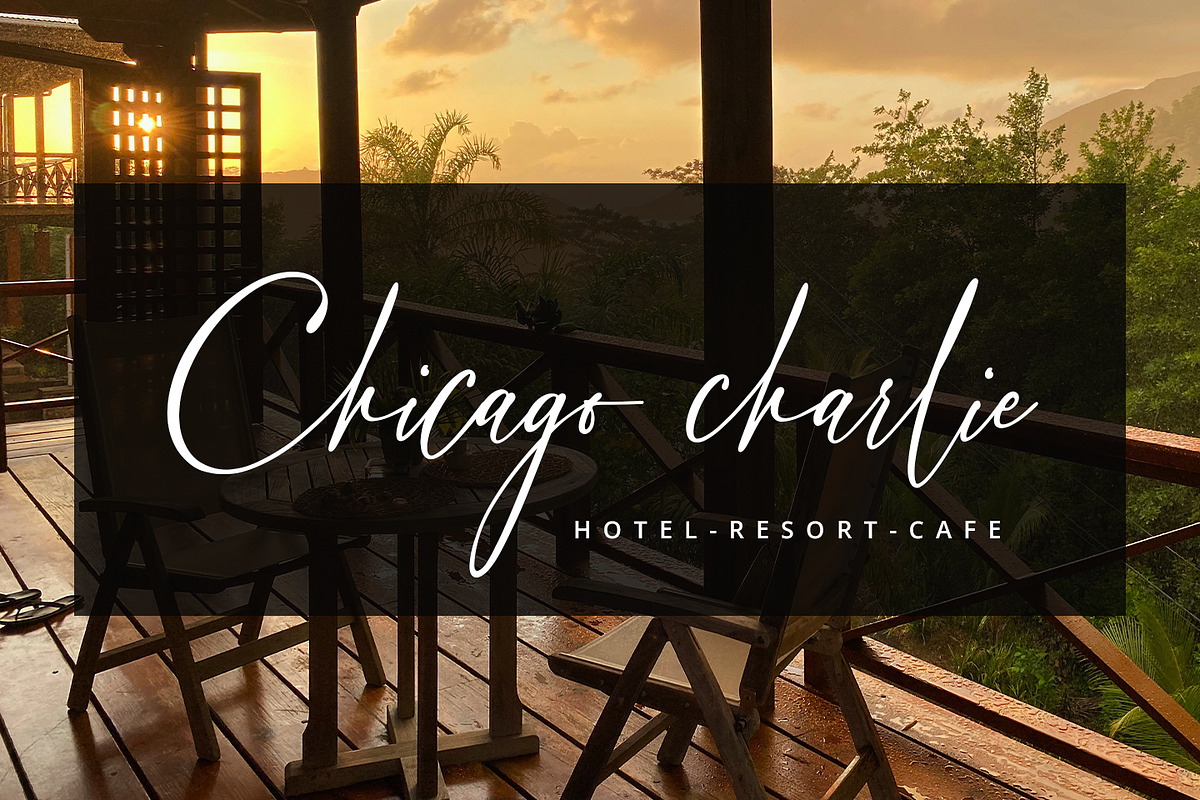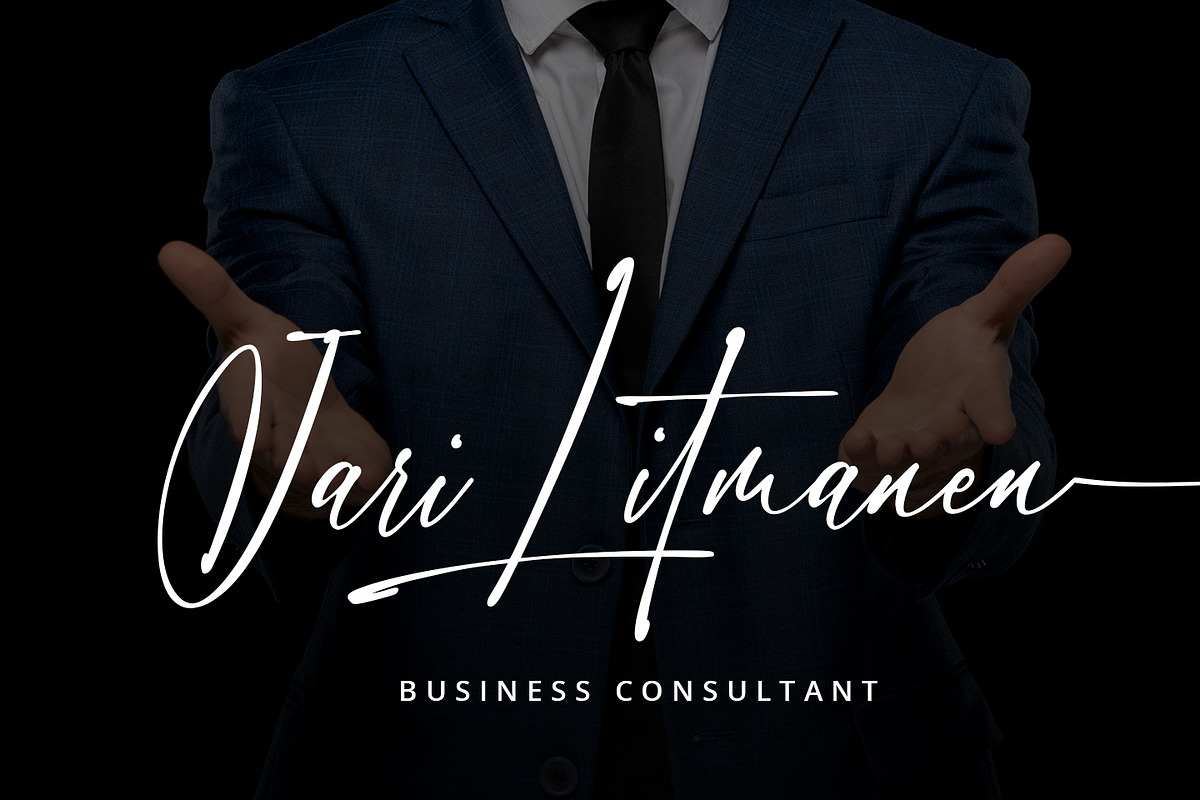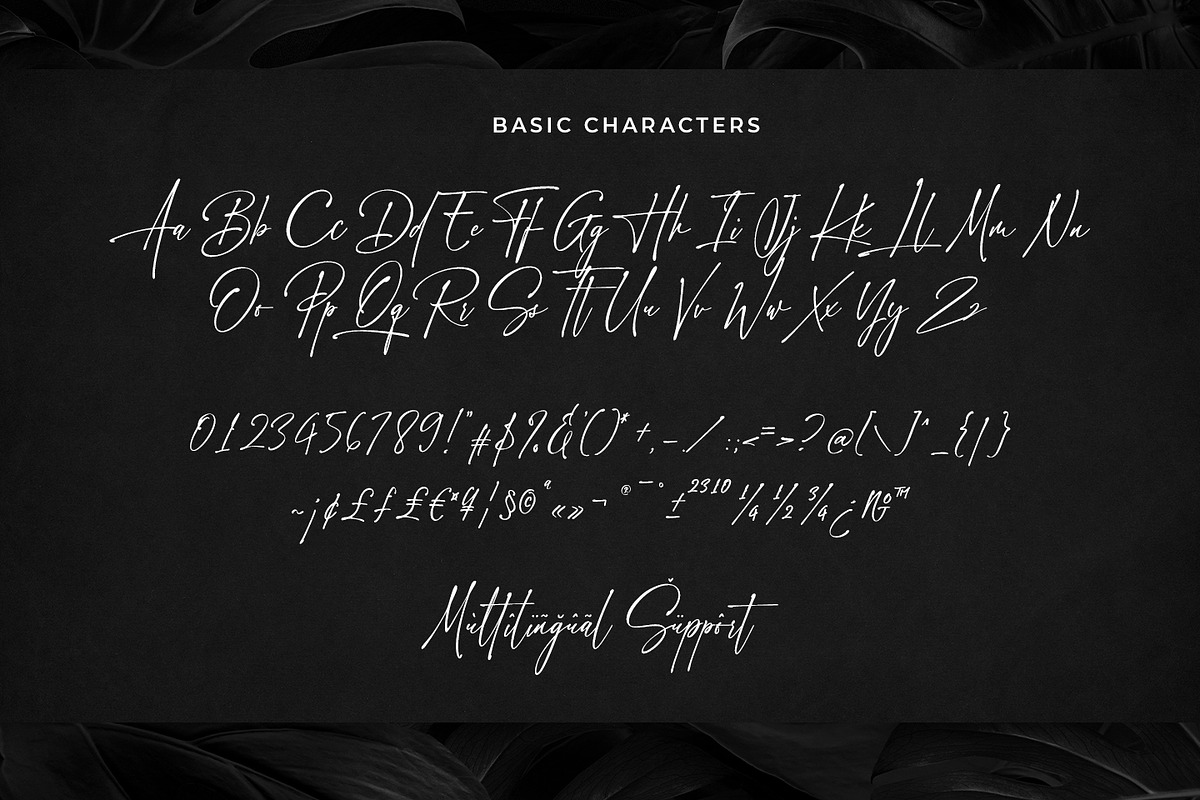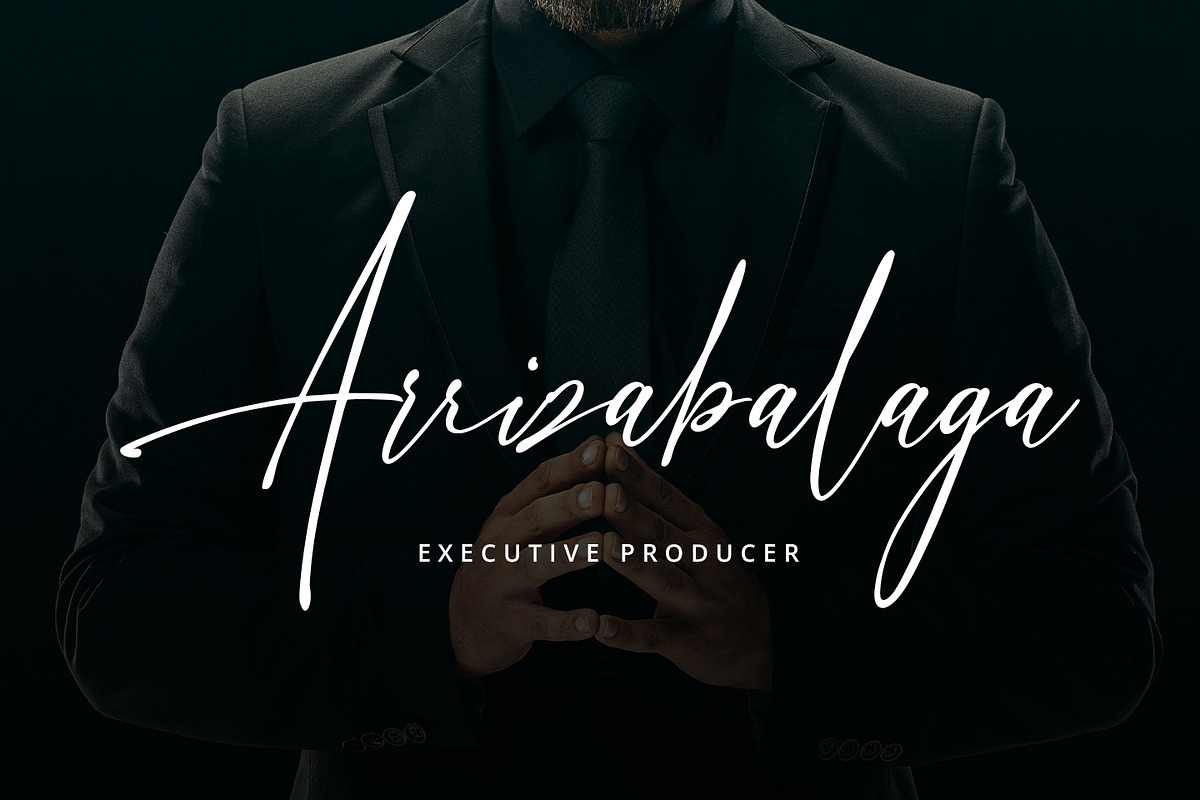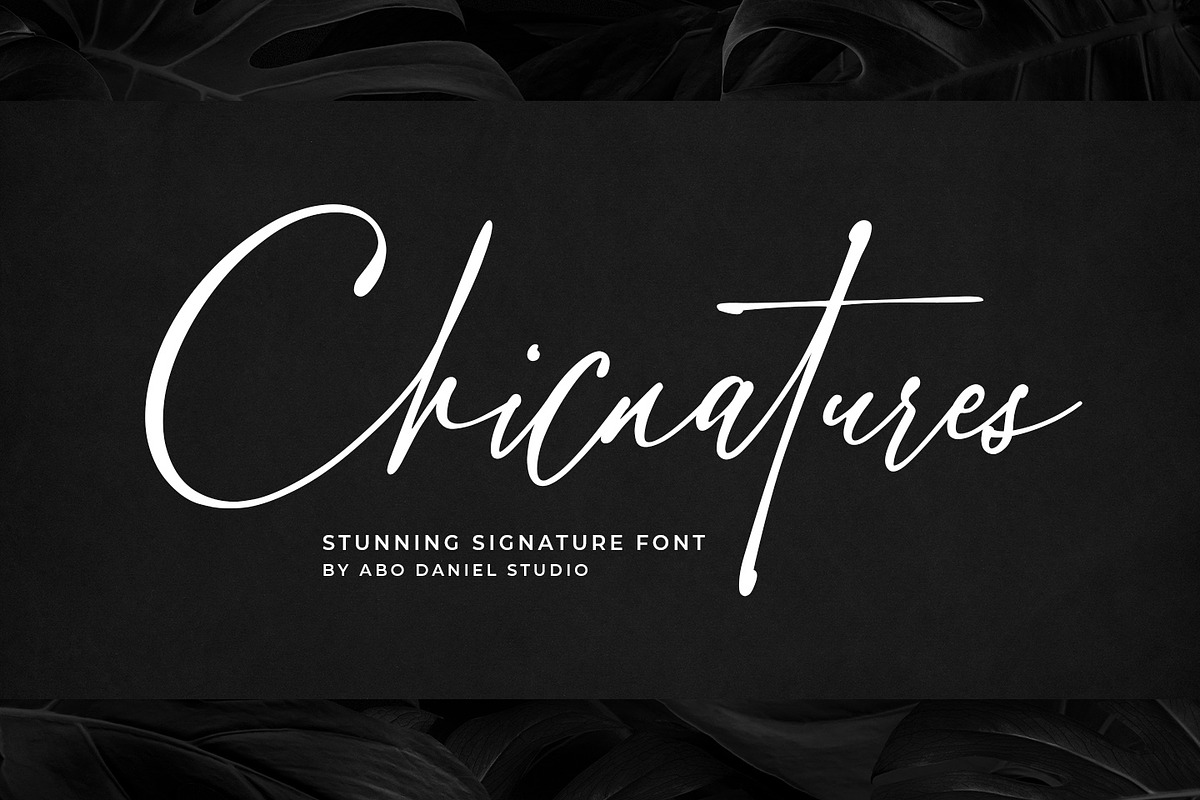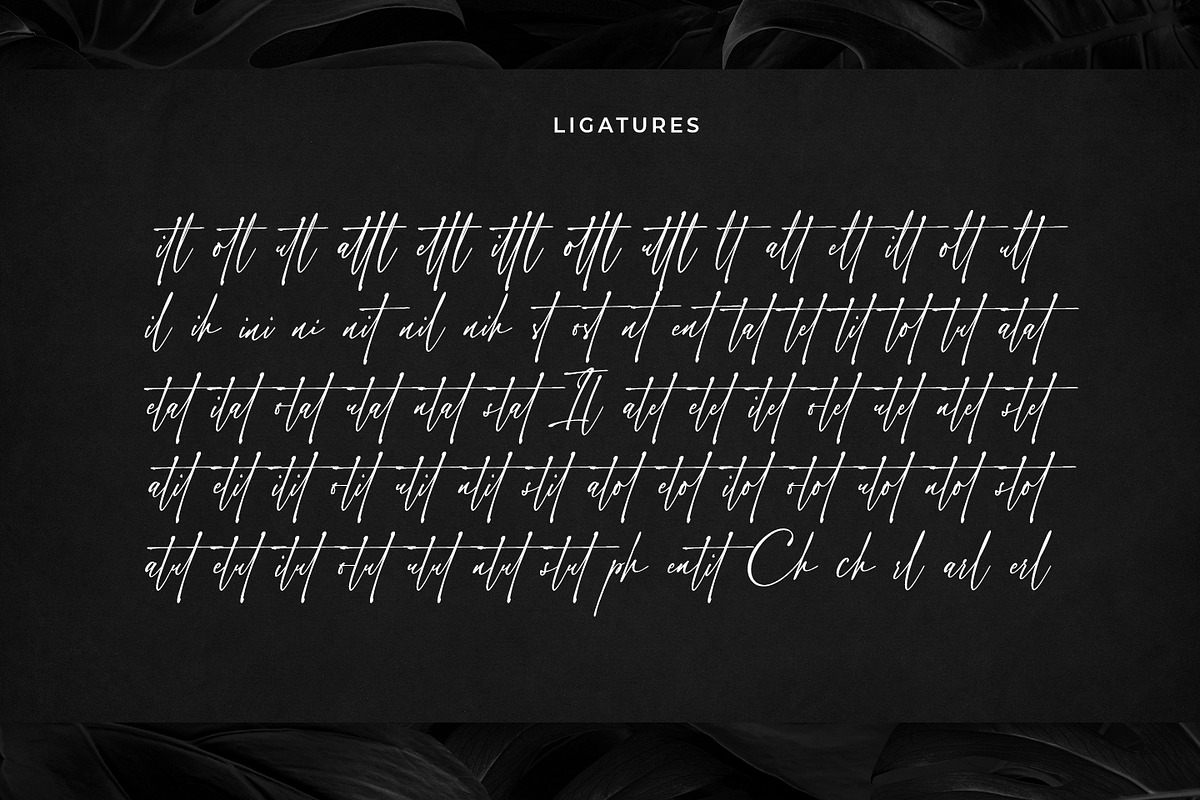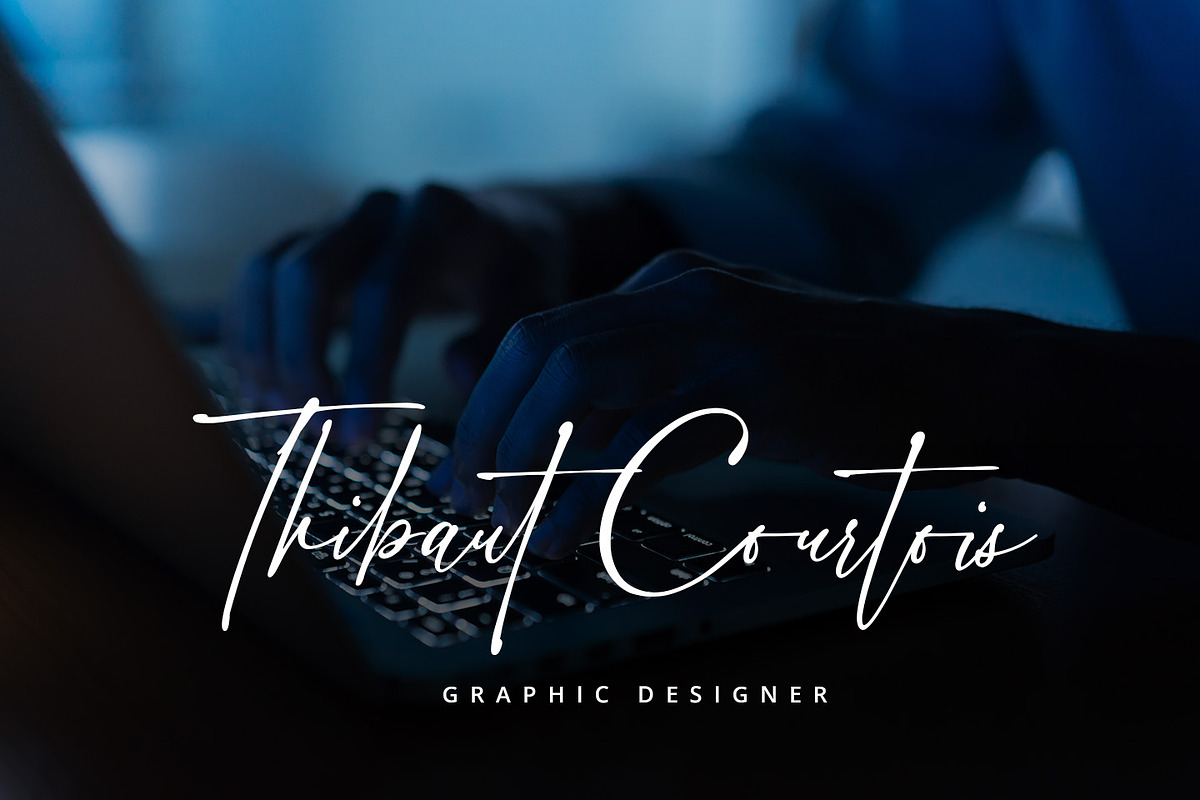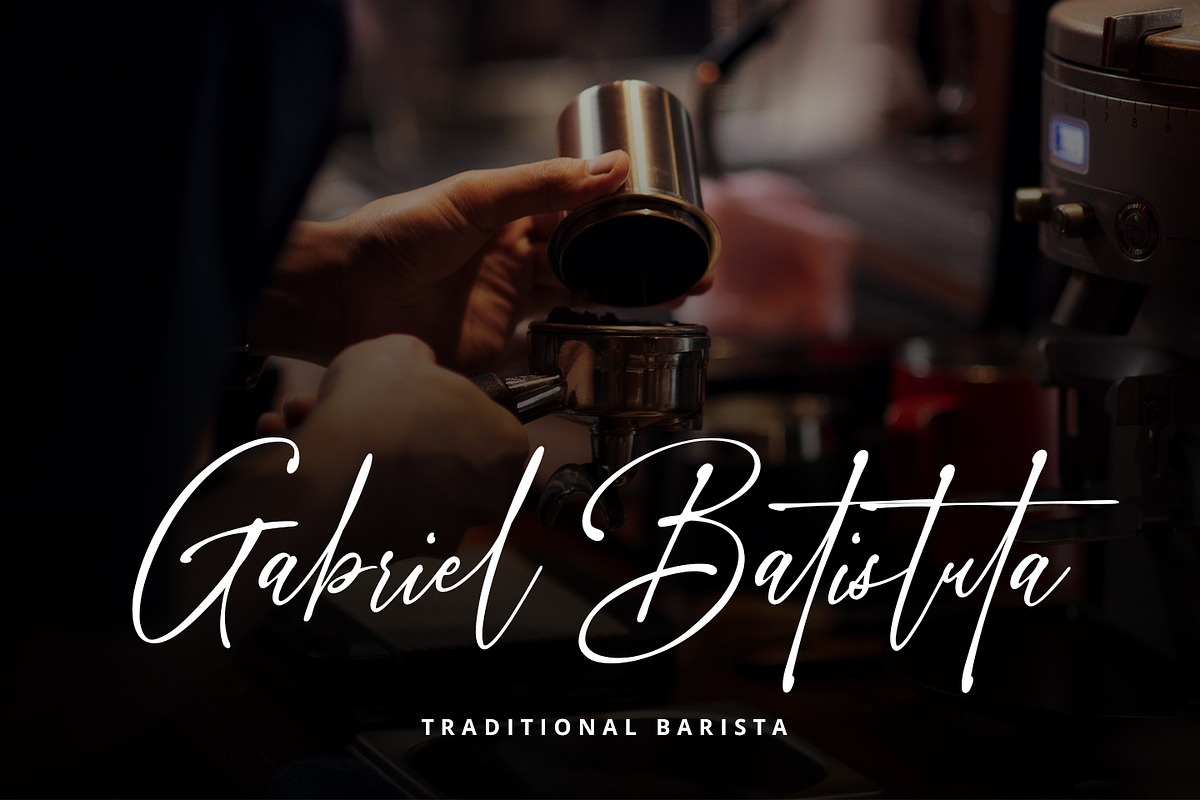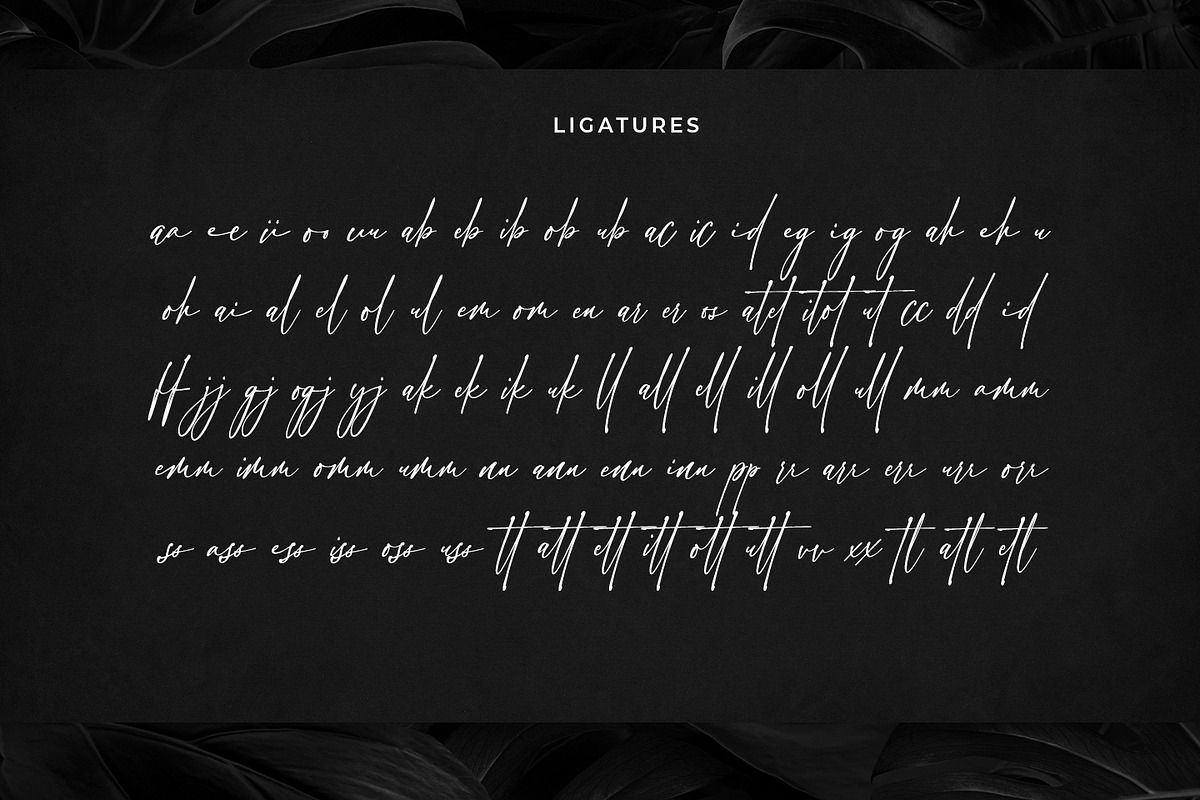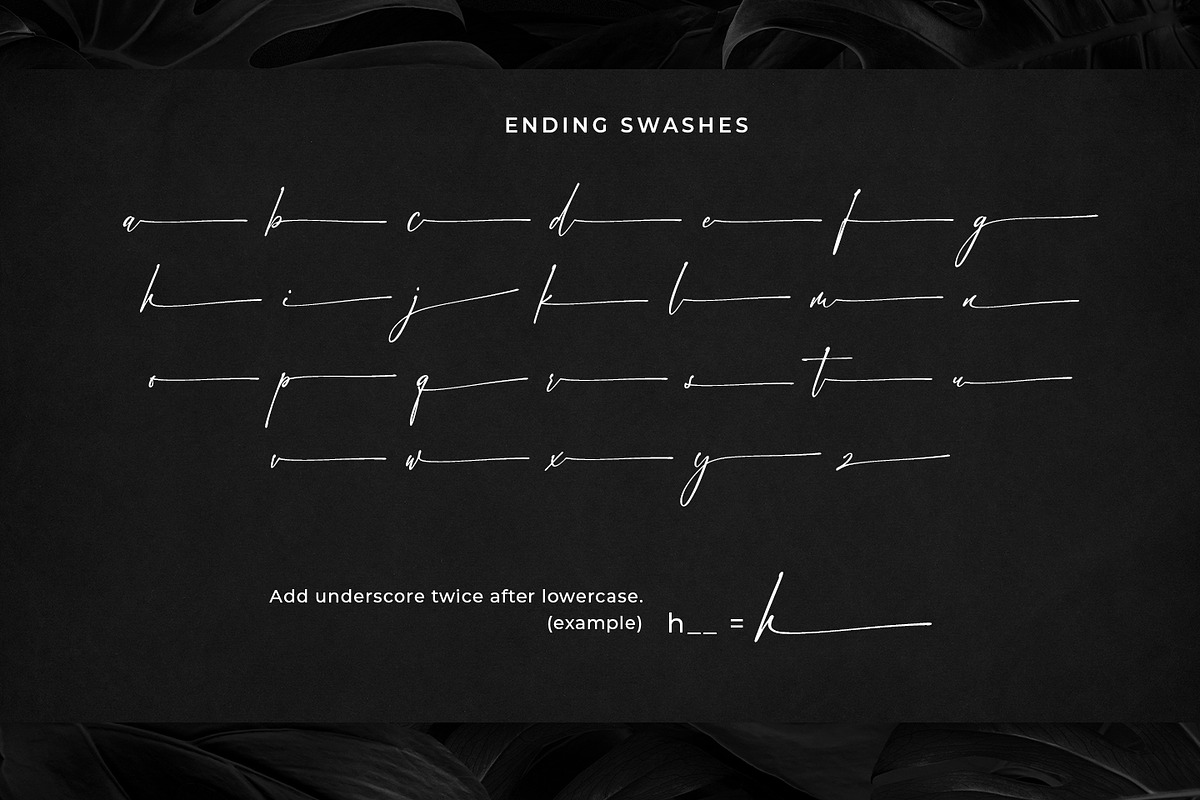
Chicnatures
introducing
CHICNATURES
-stunning signature font-
A classy and naturally beautiful typeface!
CHICNATURES is perfect for branding, logotype, photography, invitations, quotes, watermarks, advertisements, cards, product designs, labels, social media, and much more!
I designed hundreds of ligatures to make this font look so natural and easy to use. (you can see on presentation pictures). And the ending swash completed this amazing product.
- Number & Punctuations